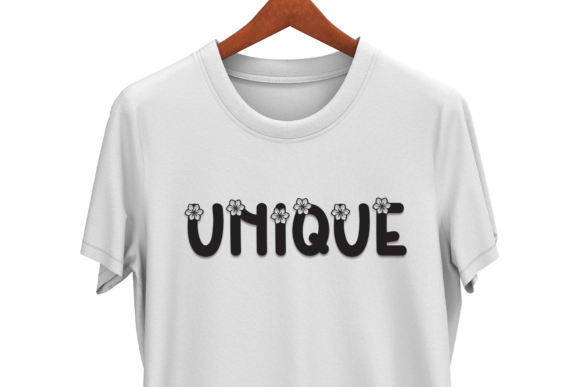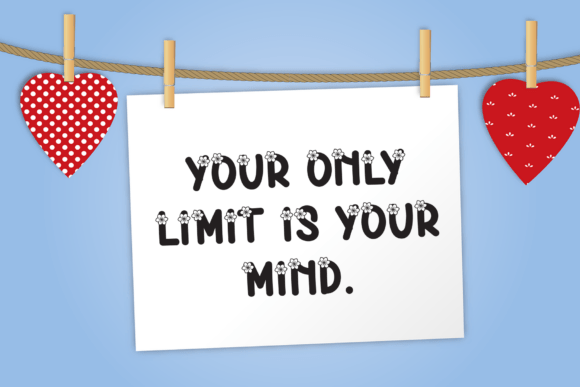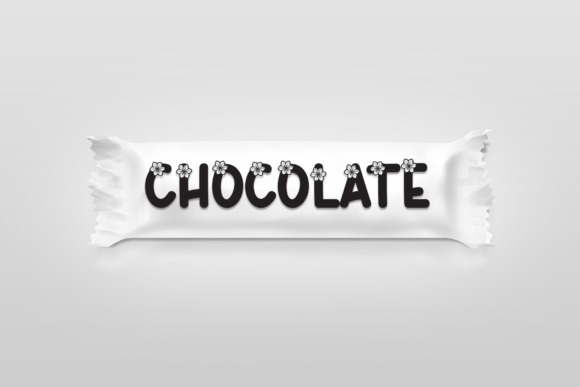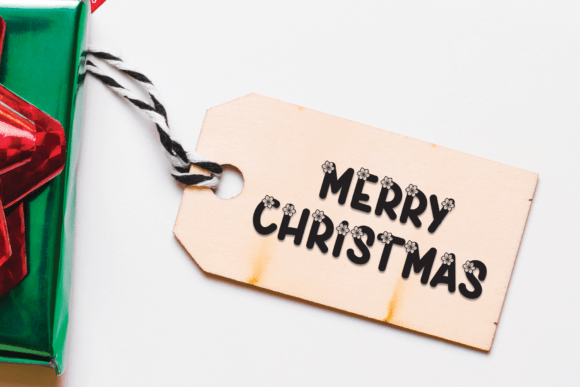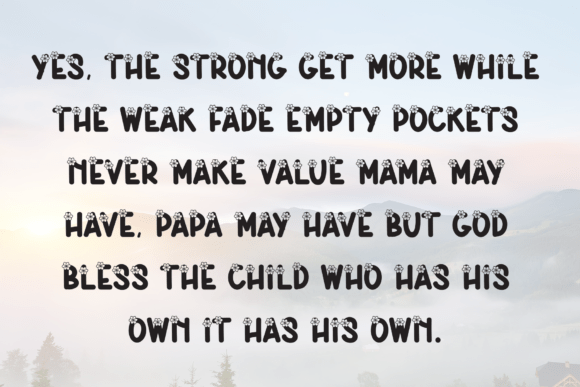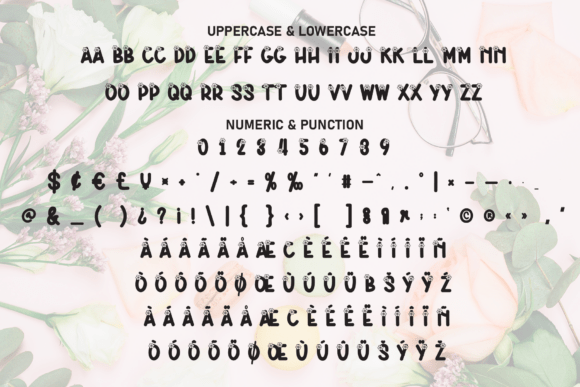
The Beauty of Creativity: Unleashing Your Inner Artist
Have you ever found yourself staring at a blank canvas, trying to come up with the perfect idea? The blank page, the empty space, it can be intimidating. But what if you had the perfect tool to spark your creativity? Introducing the Beauty Flower Font, a special creative product designed to take your projects to the next level.
The Beauty Flower Font is more than just a font – it’s a way to express yourself, to add a touch of elegance and sophistication to your designs. With its unique and stylish letters, it’s perfect for wall displays, wedding invitations, social media post logos, and so much more. As a designer, you know how valuable it is to have the right tools at your fingertips. The Beauty Flower Font is a game-changer, offering long-term support, free features, and bug fixes, so you can focus on creating your masterpiece.
Key Features of Beauty Flower Font
- Unique Characteristics: This font features intricate floral patterns and elegant curves, making it perfect for creating visually stunning designs, such as wedding invitations, greeting cards, and packaging.
Designer Review: Beauty Flower Font
I recently had the chance to work with the “Beauty Flower Font” and here’s my honest take on it.
- Unique Design: The font’s floral design is a great conversation starter and can add a touch of elegance to any project.
- Customization Options: The font comes with various styles and weights, making it easy to find the perfect fit for your design needs.
- Legibility: Despite its ornate design, the font is surprisingly legible, making it suitable for body text as well as headings.
- Overuse Risk: The font’s uniqueness can also be a double-edged sword – it may become overused and lose its impact if not used judiciously.
- Compatibility Issues: I encountered some compatibility issues with older browsers and systems, which may limit its use in certain projects.
- Lack of Versatility: While the font is great for certain projects, it may not be the best choice for projects that require a more modern or minimalist aesthetic.
Overall, I think the “Beauty Flower Font” is a beautiful and unique addition to any designer’s toolkit. While it may have some limitations, it’s definitely worth considering for projects that require a touch of elegance and sophistication.
Tips for Getting the Most Out of Beauty Flower Font
Use the font for titles and headings to add a touch of elegance to your designs. Pair the font with bold, bright colors to create a visually appealing contrast. Experiment with different font sizes and styles to create a unique look.
Beauty Flower Font is ideal for wedding invitations, floral-themed designs, and feminine branding. Use it to create a whimsical and romantic atmosphere in your designs.